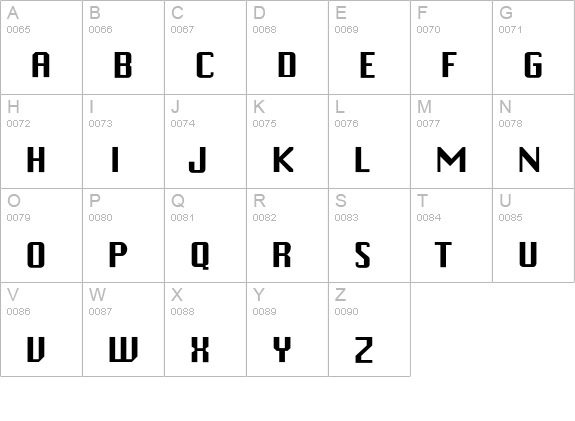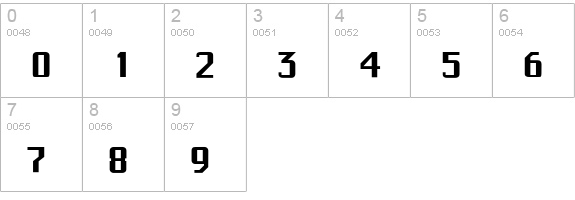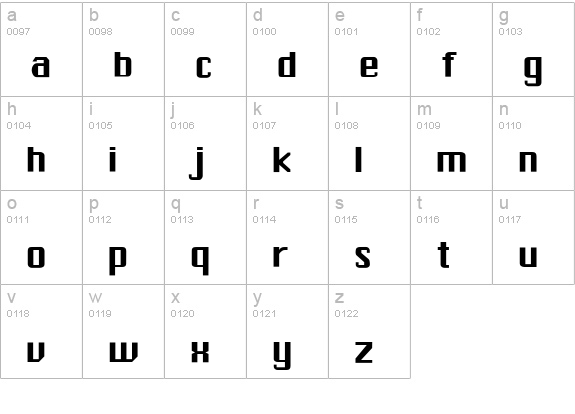
ChiTown-Light Font Details
ChiTown-Light is a refined, elegant variant in the ChiTown typeface family \xE2\x80\x94 well suited to elegant body text, refined sub-headings, and luxury branding.
ChiTown-Light font is a modern and stylish typeface that exudes elegance and sophistication. With its sleek lines and contemporary design, this font is perfect for a wide range of creative projects. Whether you're designing a logo, creating a poster, or crafting a website, ChiTown-Light font will add a touch of class to your work. Best of all, ChiTown-Light font is available for free download at FontsMarket.com. You can easily access this stunning font and start using it in your projects right away. Don't miss out on the opportunity to enhance your designs with the beauty of ChiTown-Light font. Download it today and let your creativity shine!